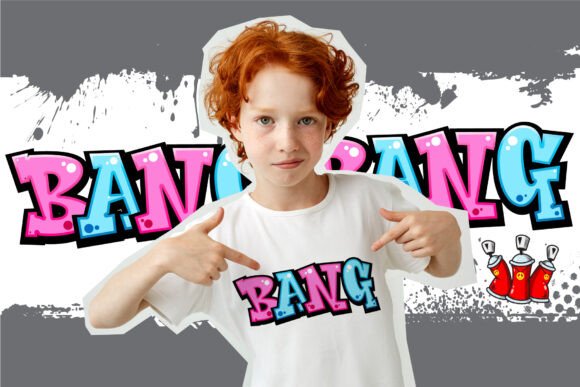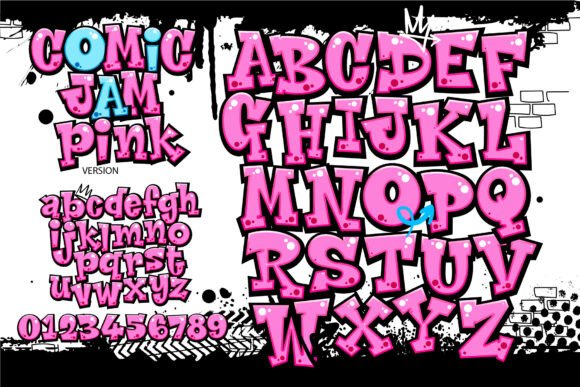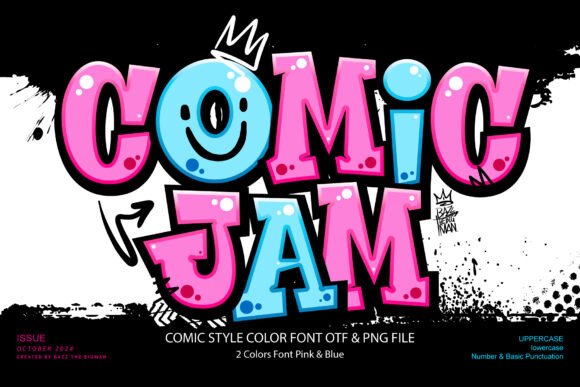
Comic Jam Font
Step into a world of bold, vibrant color with Comic Jam! This stunningly unique comic display font is a symphony of dynamic pink and blue hues that dance off the page. Expertly crafted, Comic Jam perfectly blends visual impact and functional design, promising to elevate your creative projects to new heights. Let Comic Jam transform your vision into reality and witness your ideas soar to their fullest potential. This font is not just a typography tool, it’s a game changer!